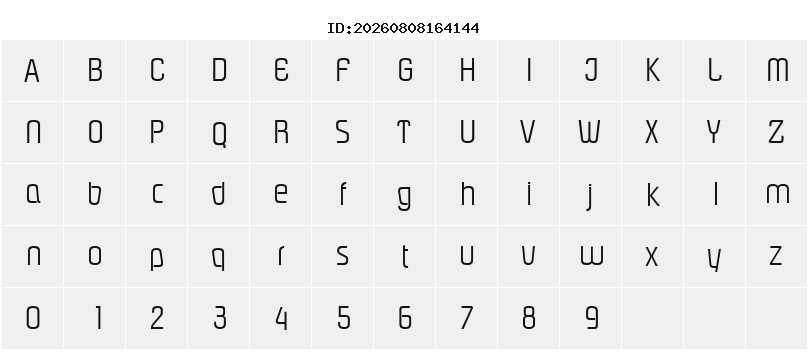
• Font Name: PloverLight
About PloverLight.ttf
PloverLight.ttf is a modern, elegant sans-serif font designed for ultimate readability and visual harmony. Perfect for branding, headlines, web design, and print materials.